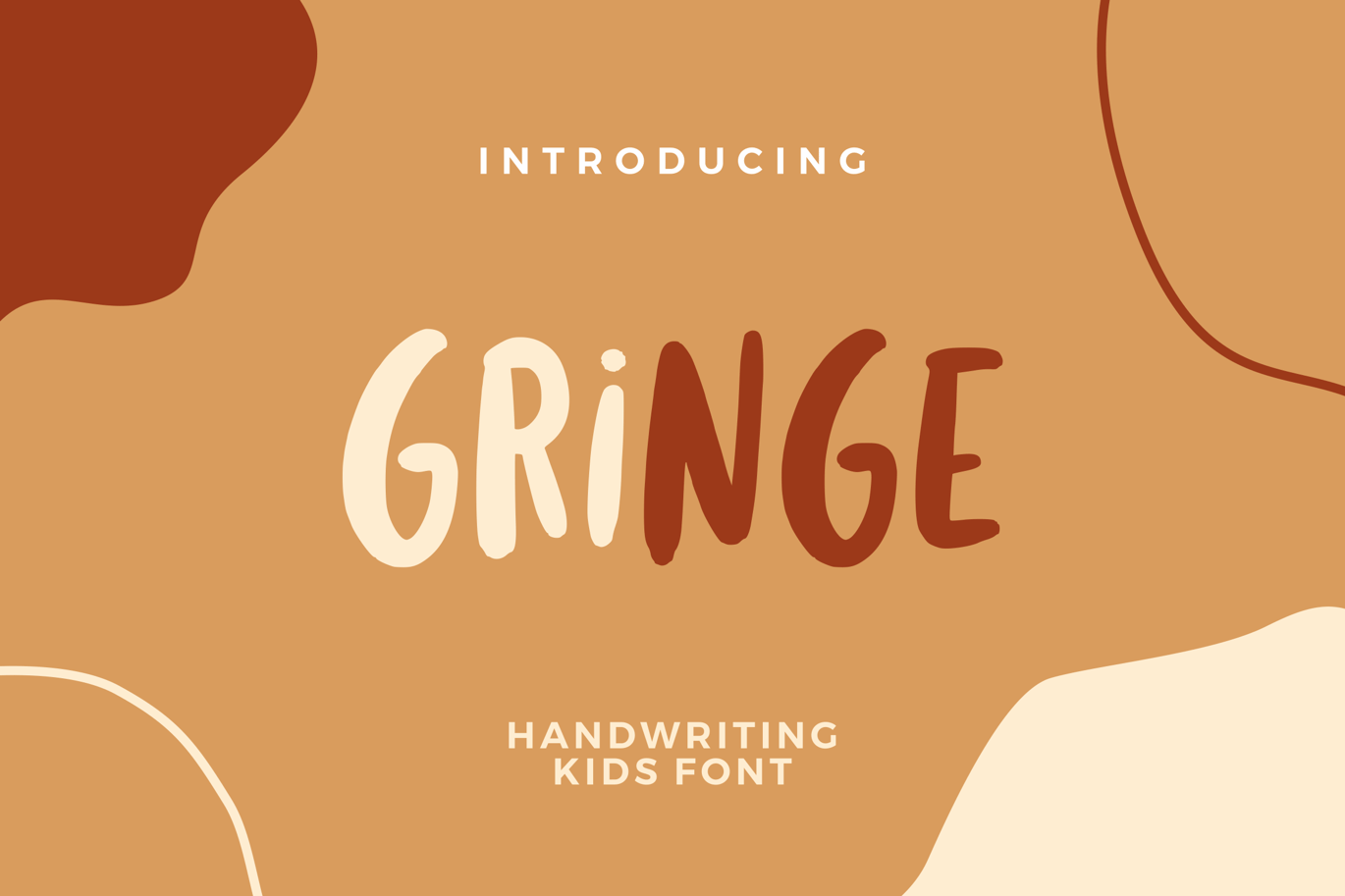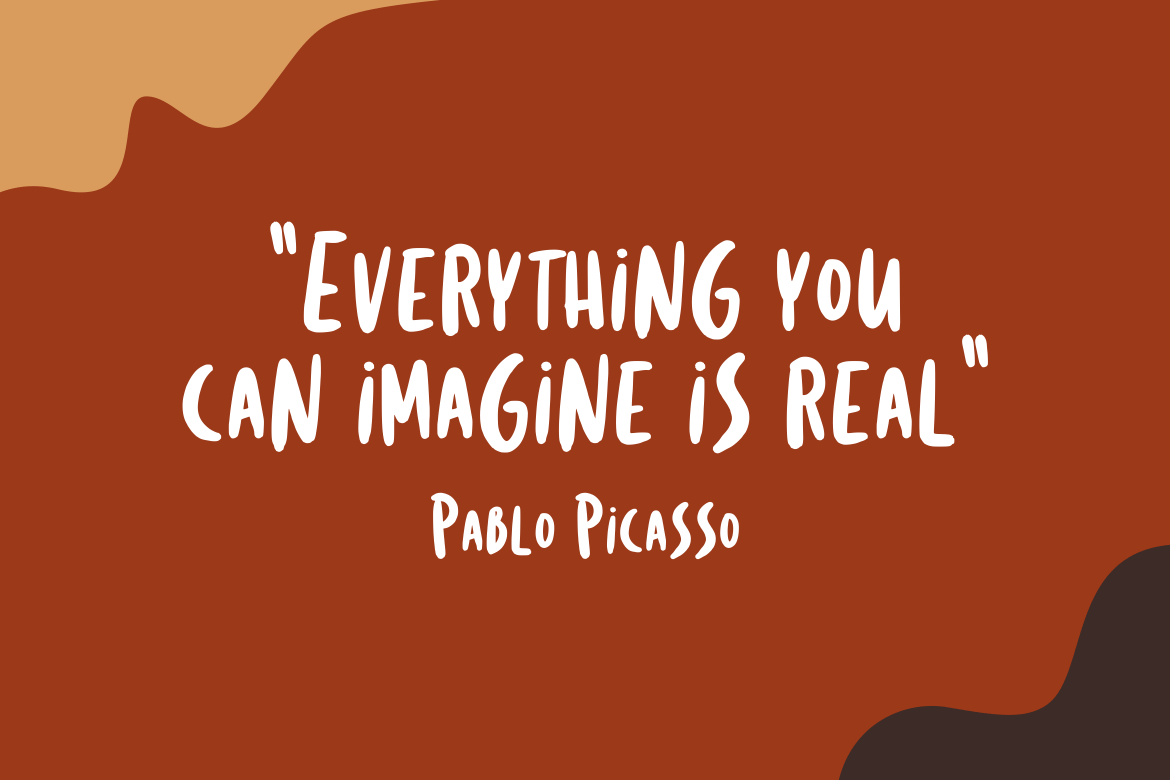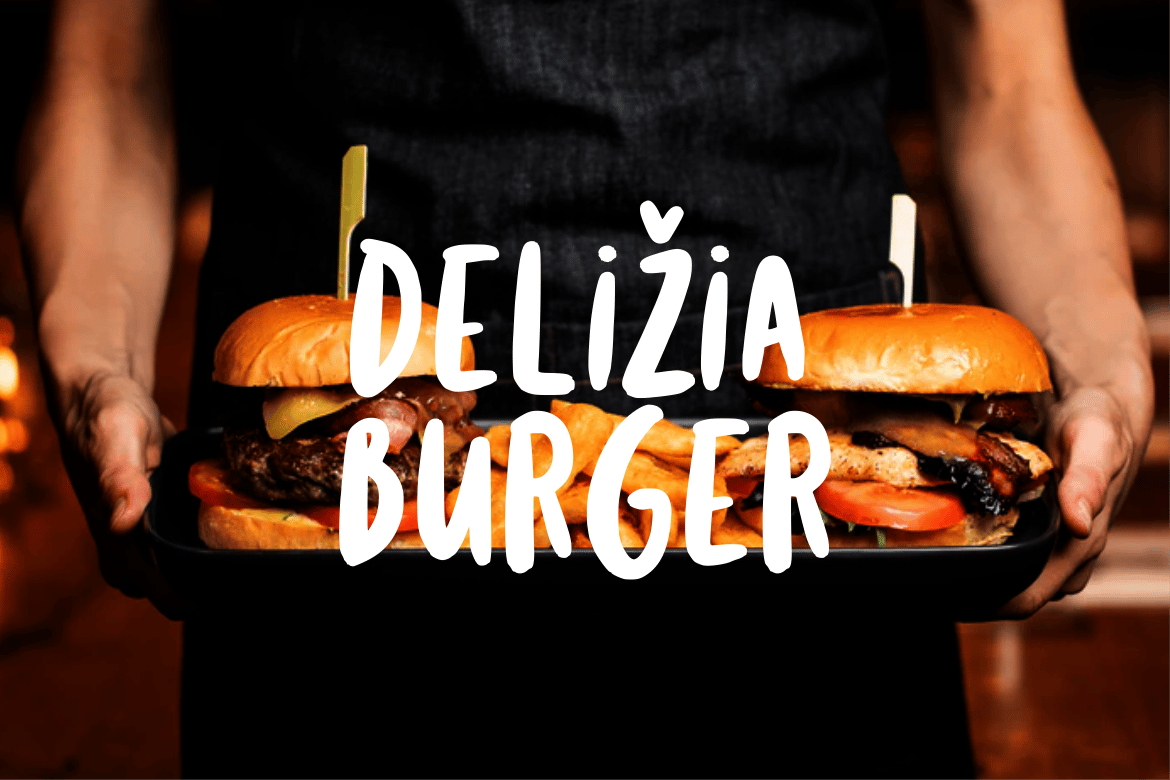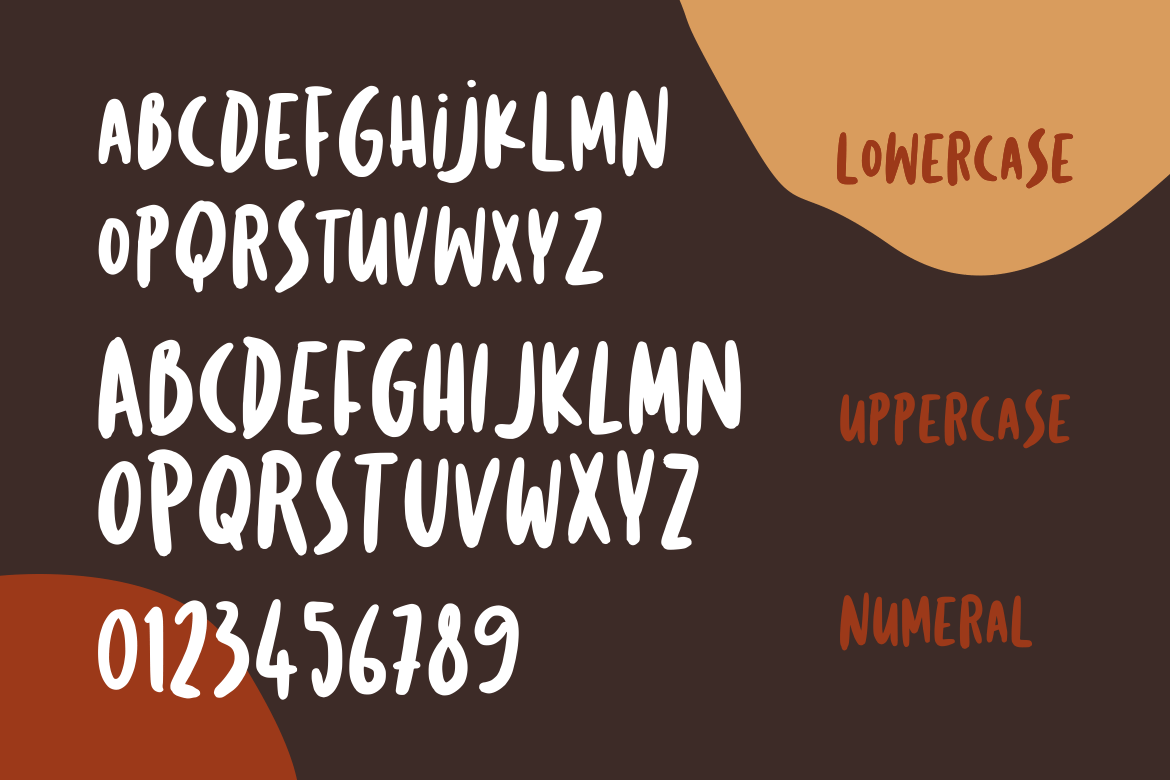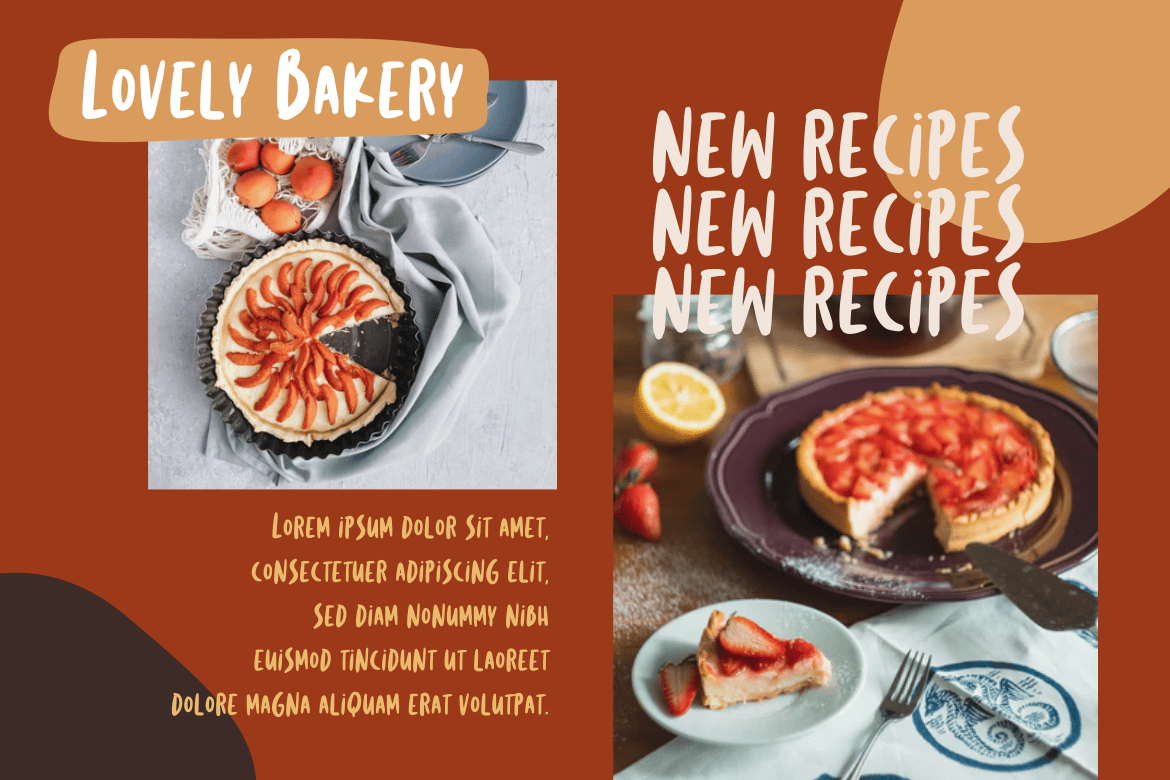
Gringe Handwriting Font
Introduces a unique handwritten font called ** Sealfish ** with uppercase characters all suitable for quotes, titles, posters, brochures, social media, logos, branding and more.